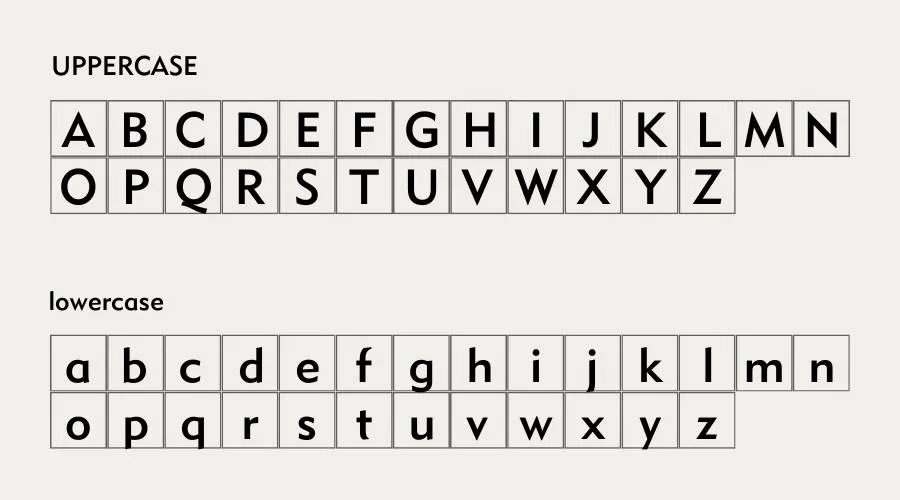
Geometric 415 Font
About Geometric 415 Font
Geometric 415 Font is clean and modern sans serif typeface it is made up of a thin and clear texture in a modern style. It was designed for the first time by William Addison Dwiggins.
There is upper case, lower case, numerals, punctuation marks, and a few special characters included. A lightweight display is ideal for any design because of its sleek appearance.